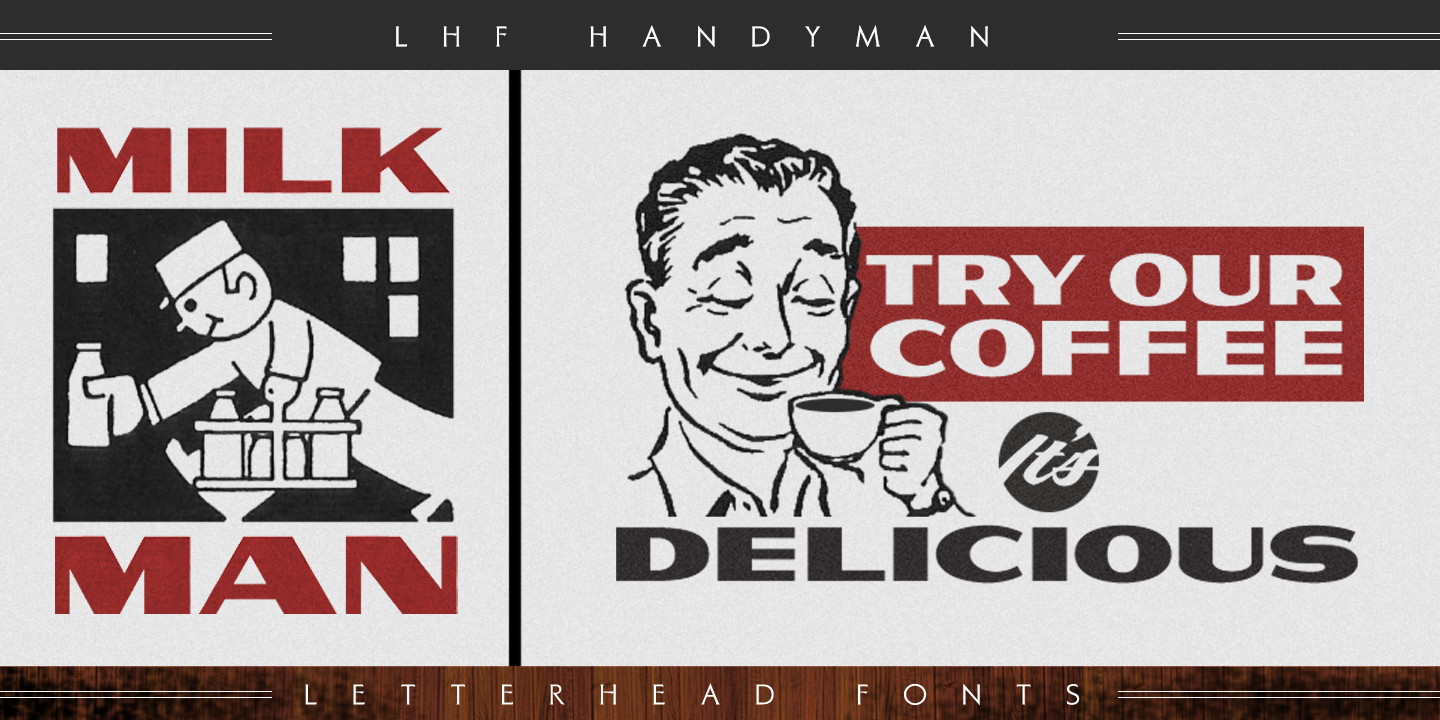
LHF Handyman Font Free Download delivers authentic typography that combines craftsman character with rugged functionality for trade-focused design applications. This commercial font requires purchase for business use, but you can download it for free for testing purposes to evaluate its distinctive workmanship characteristics in your creative projects.
LHF Handyman Font excels across diverse design applications including construction company branding, tool manufacturer marketing, home improvement advertising, carpenter business identity, mechanic shop signage, contractor communications, DIY project materials, and trade industry publications. Its hardworking character makes it particularly effective for projects requiring authentic craftsmanship while maintaining professional credibility, ensuring your designs convey reliability and skilled workmanship across both digital platforms and job site print materials.
What makes LHF Handyman Font truly exciting is its masterful interpretation of blue-collar craftsmanship and honest work ethic enhanced with contemporary design sensibilities that creates compelling trade communications. The font features carefully crafted letterforms that incorporate subtle elements reminiscent of hand tools and workshop aesthetics while maintaining excellent readability and business application. Its distinctive character construction draws inspiration from traditional craftsmanship and skilled trade culture, creating text that feels both authentically working-class and professionally dependable. The font's optimized spacing and sturdy proportions ensure superior performance across various trade applications while preserving the characteristic honesty that defines its craftsman personality.
LHF Handyman Font presents a comprehensive type family designed to support diverse trade and construction design requirements. The family typically includes regular, medium, bold, and heavy weights, along with corresponding italic variations that provide complete flexibility for working-class typography compositions. Many versions feature extended character sets with tool symbols, trade ornaments, and specialized glyphs that enhance authentic craftsman aesthetic applications.
The LHF Handyman Font Free Download represents exceptional value for designers working on trade-focused and construction industry projects across multiple sectors. Whether developing contractor business branding, creating tool company communications, designing home improvement materials, or producing skilled trade content, this font delivers consistent authenticity and memorable craftsman appeal. Its working characteristics make it particularly effective for industries including construction, home improvement, automotive repair, and skilled trades sectors seeking to communicate genuine expertise and reliable workmanship.
For optimal results, LHF Handyman Font combines powerfully with industrial color schemes and trade-related design elements that reinforce its craftsman message. Its authentic presence excels in headline applications while maintaining excellent performance in trade documentation contexts. The font's craftsman sophistication and working appeal make it an invaluable tool for creating trustworthy communications that resonate with audiences appreciating skilled workmanship and honest labor values.